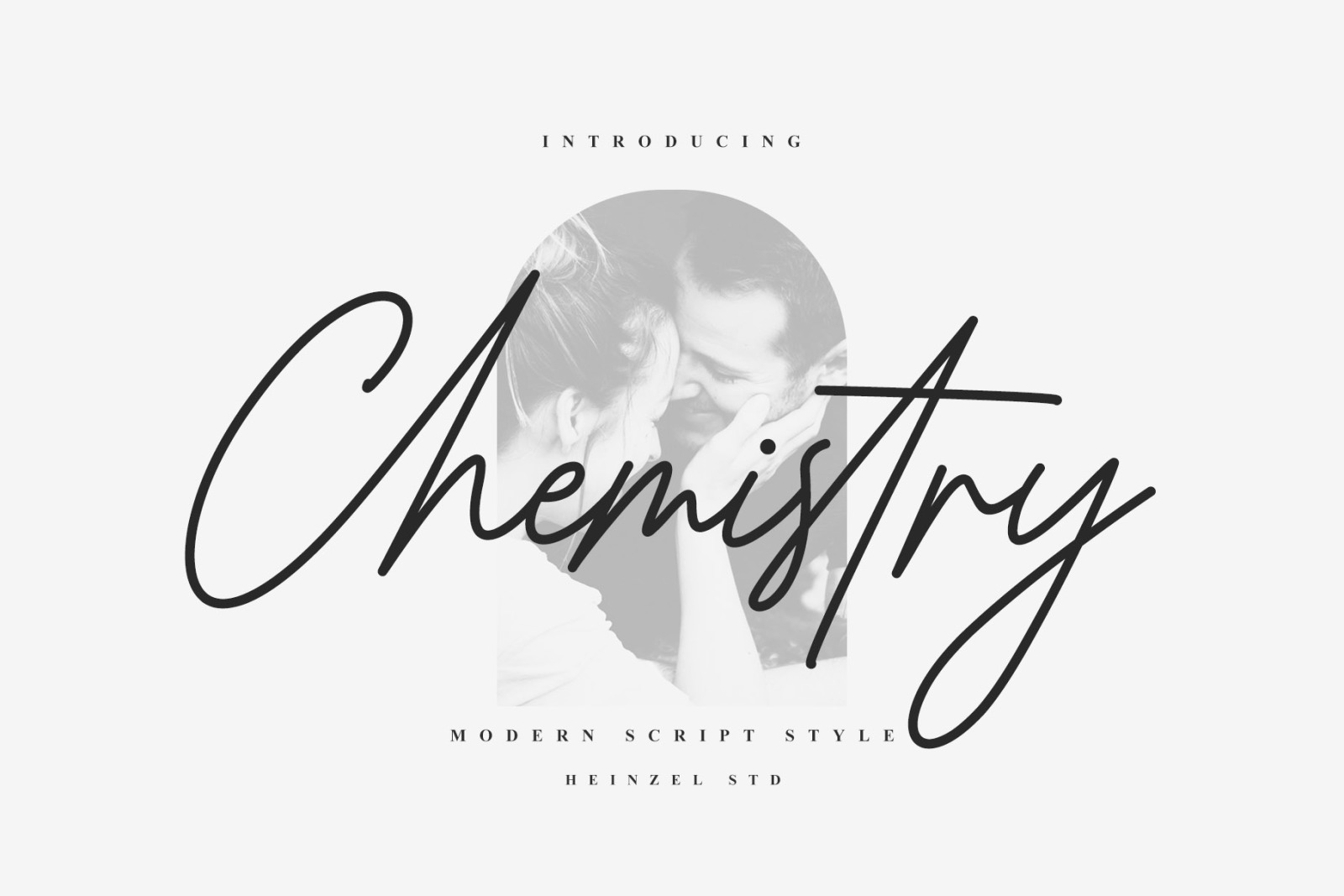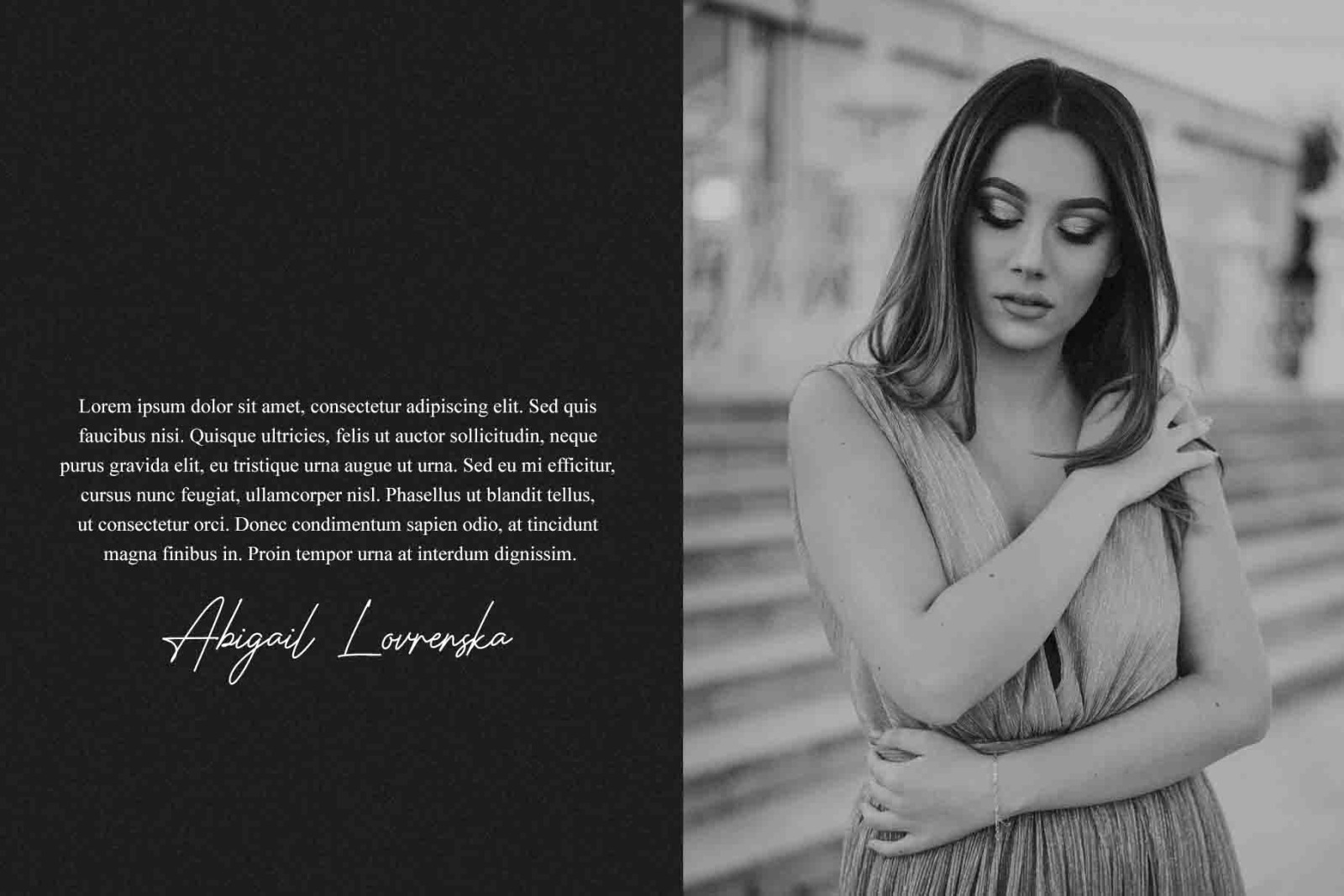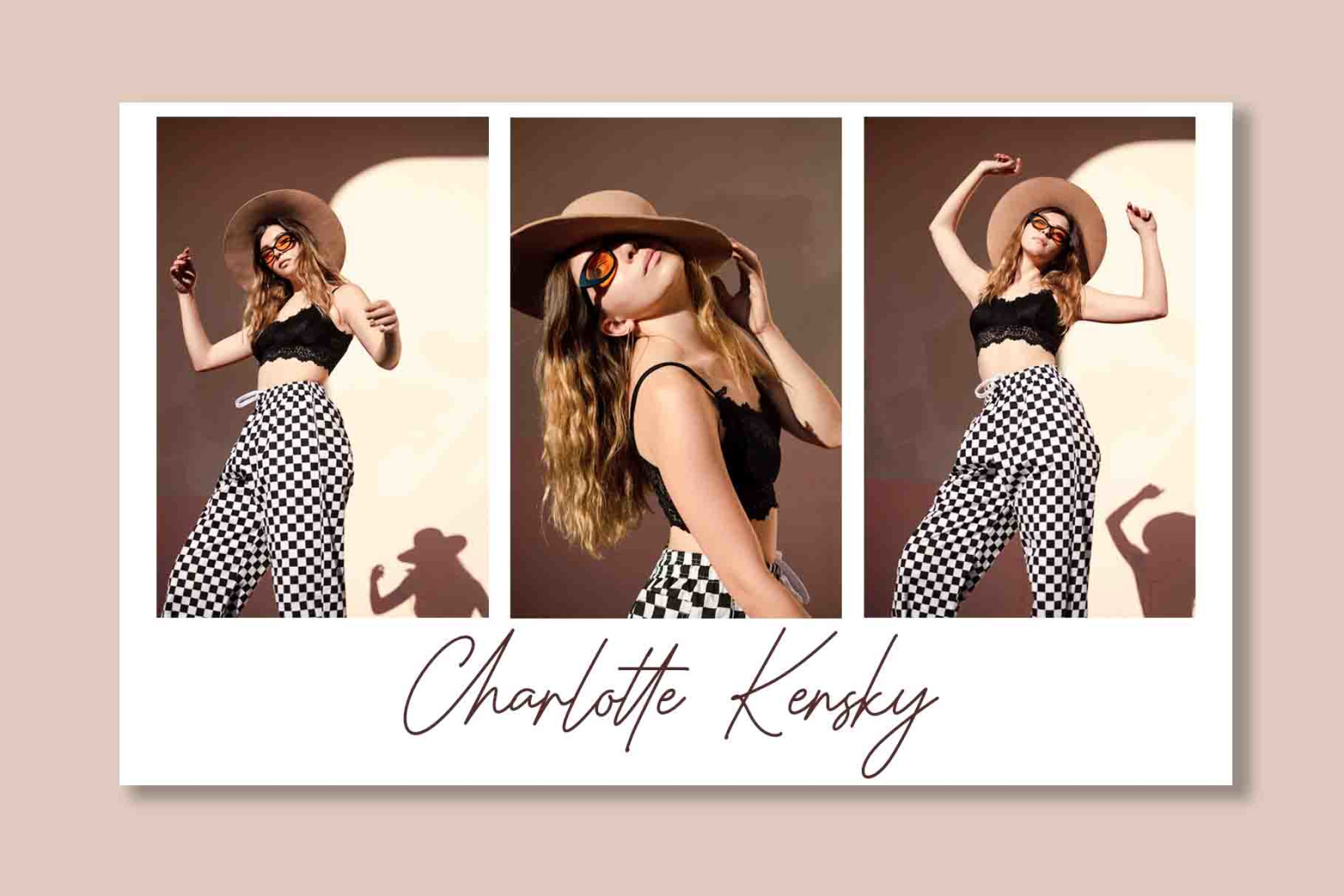
Chemistry - Modern & Elegant Fonts
Chemistry is a flowing handwritten font, described by an elegant touch, perfect for your favorite projects. Fall in love with its incredibly distinct and timeless style and use it to create spectacular designs!